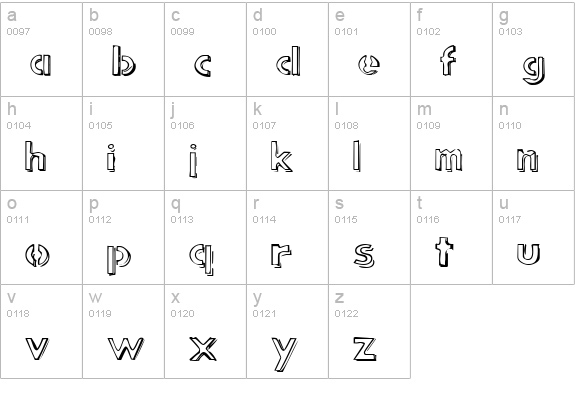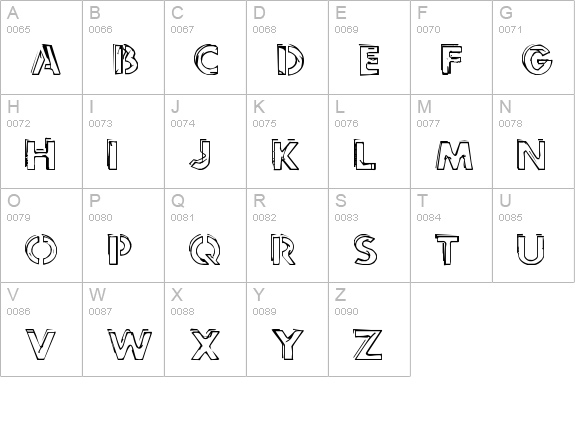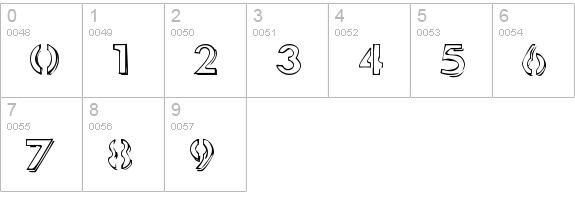
punk rock rummage sale Font Details
Introducing the Punk Rock Rummage Sale font - a rebellious and edgy typeface that perfectly captures the raw energy and DIY spirit of punk rock culture. This font is a bold and striking choice for any project that needs a touch of attitude and grit. With its jagged edges and distressed look, Punk Rock Rummage Sale font demands attention and makes a statement. But here's the best part - this font is available for free! Yes, you read that right. You can freely download the Punk Rock Rummage Sale font at FontsMarket.com and unleash its punk rock vibe in your designs without spending a dime. So go ahead, grab this unique font and let your creativity run wild with its rebellious charm.